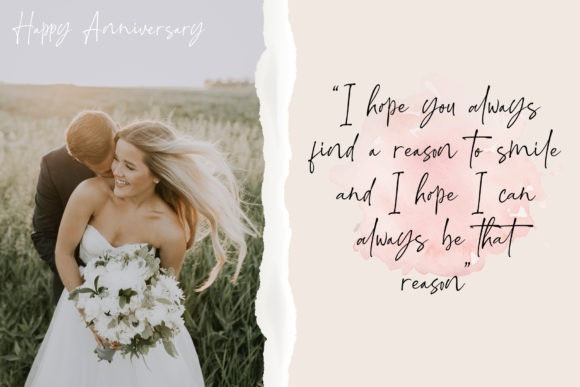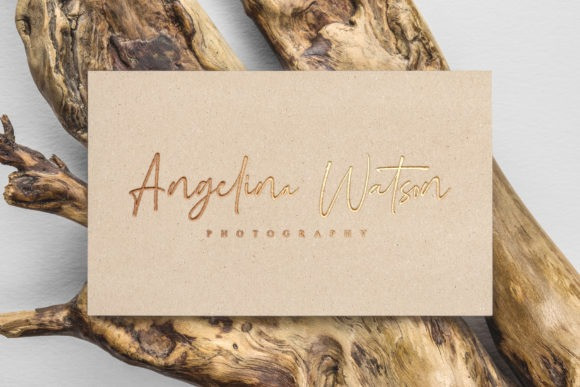
Feisty Script Font
Feisty is a bold yet incredibly elegant handwritten font. Distinct and flowing, this font is the perfect choice for a wide pool of designs. Add it to your most creative ideas and notice how it makes them come alive!